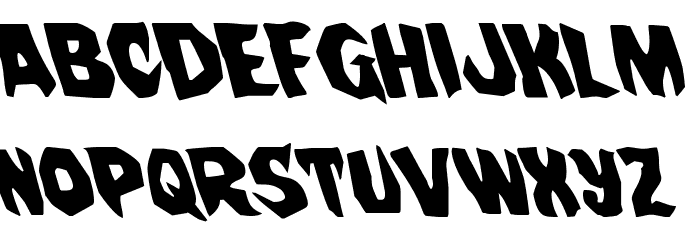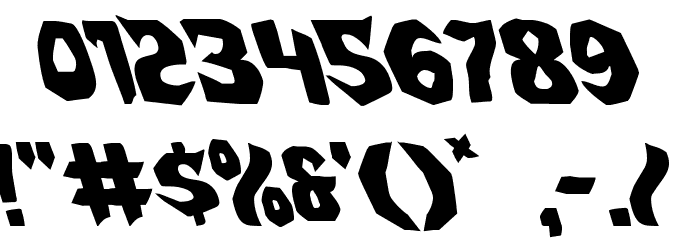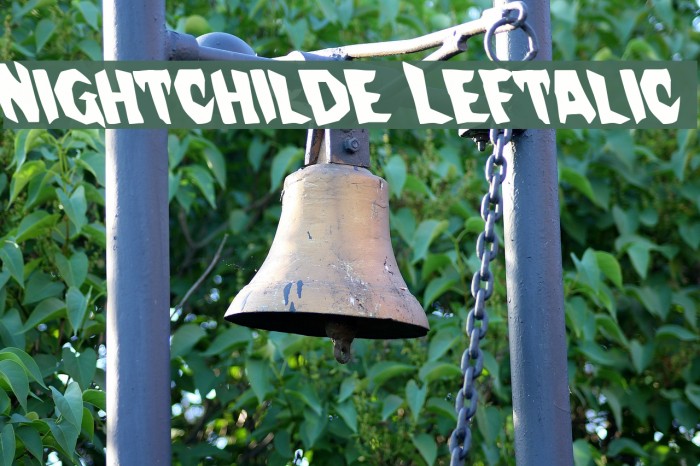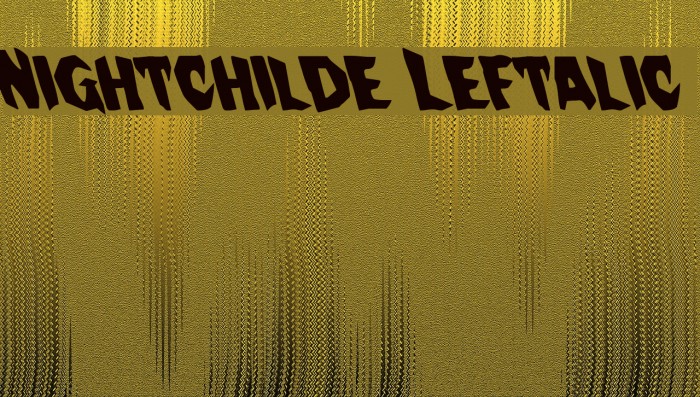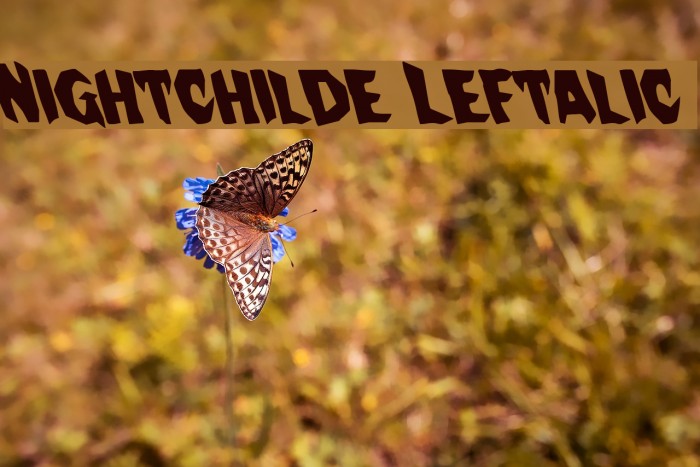
Nightchilde Leftalic Font
This font features a bold and dynamic style with a distinct leftward slant, giving it a sense of movement and energy. The characters are thick and robust, with sharp angles and irregular edges that contribute to a rugged, edgy appearance. The uppercase and lowercase letters maintain a consistent style, while the numerals and special characters complement the overall design. The font's unique aesthetic makes it stand out, suitable for projects that require a strong visual impact.
A bold, slanted font with a rugged, dynamic style.
- Proposed Projects: Ideal for music album covers, posters, video game graphics, and branding that requires a bold statement.
- Overall Style: Modern, Edgy